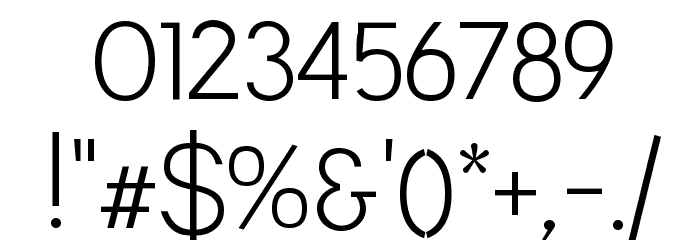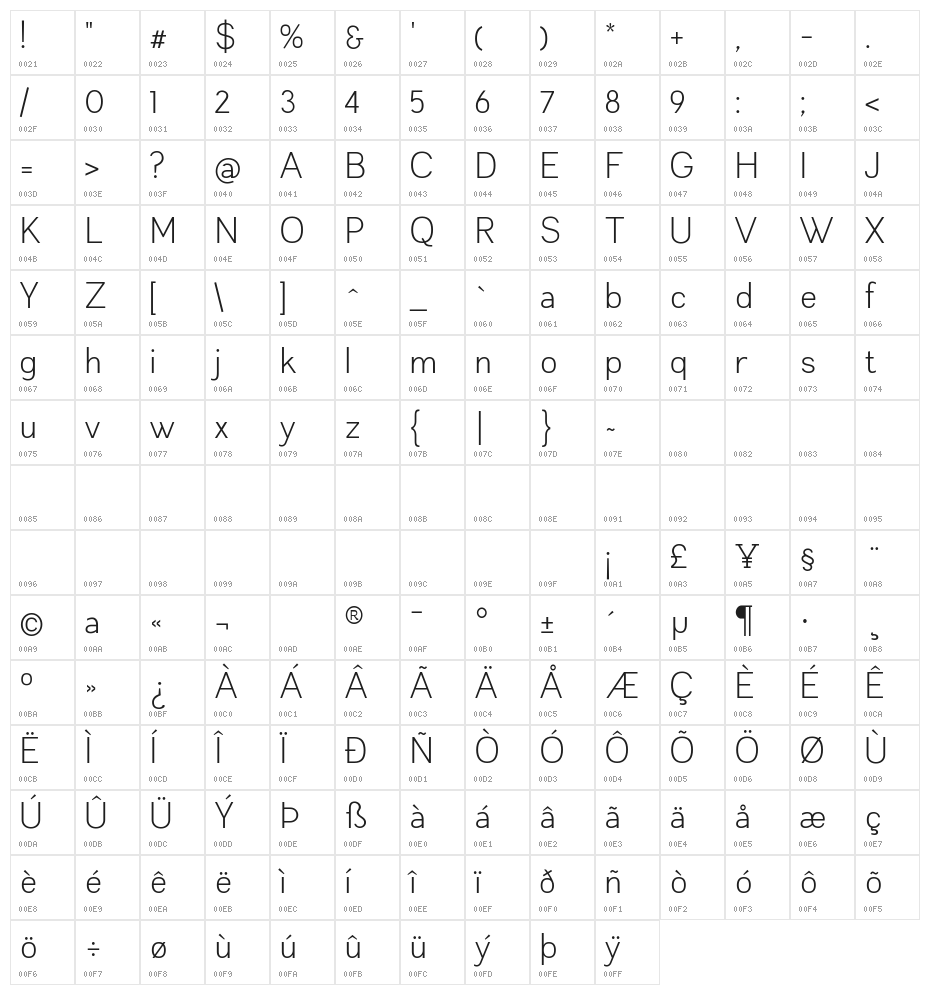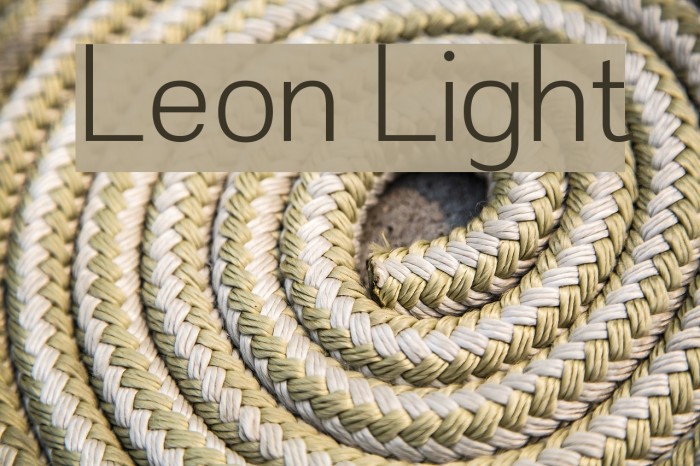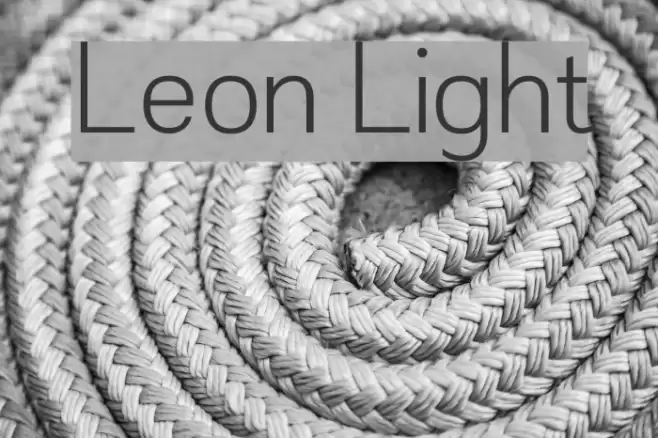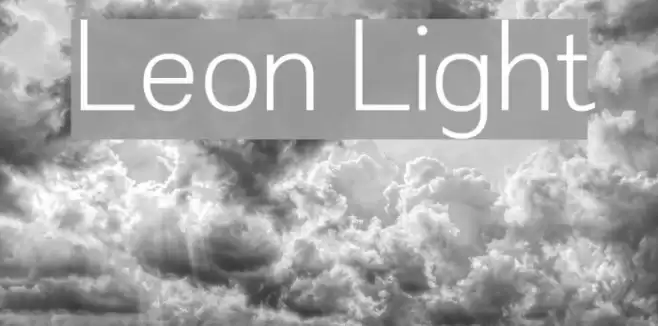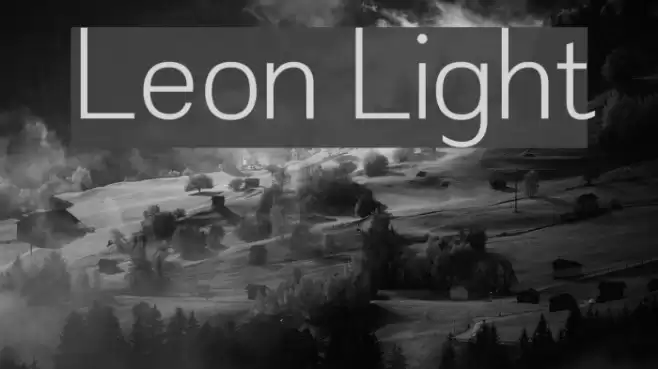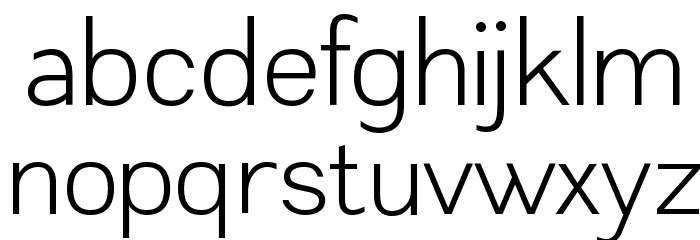
Leon Light Font
Leon Light Description
This font features a clean and modern sans-serif design with a light weight, offering a sleek and professional appearance. The characters are well-proportioned with a consistent stroke width, providing a harmonious and balanced look. The uppercase letters are tall and slightly narrow, while the lowercase letters maintain a uniform height, enhancing readability. The numerals are clear and distinct, making them suitable for both digital and print applications. Special characters are designed with simplicity and clarity in mind, ensuring they integrate seamlessly with the rest of the typeface.
| Proposed Projects | Ideal for corporate branding, minimalist design projects, digital interfaces, and editorial layouts. |